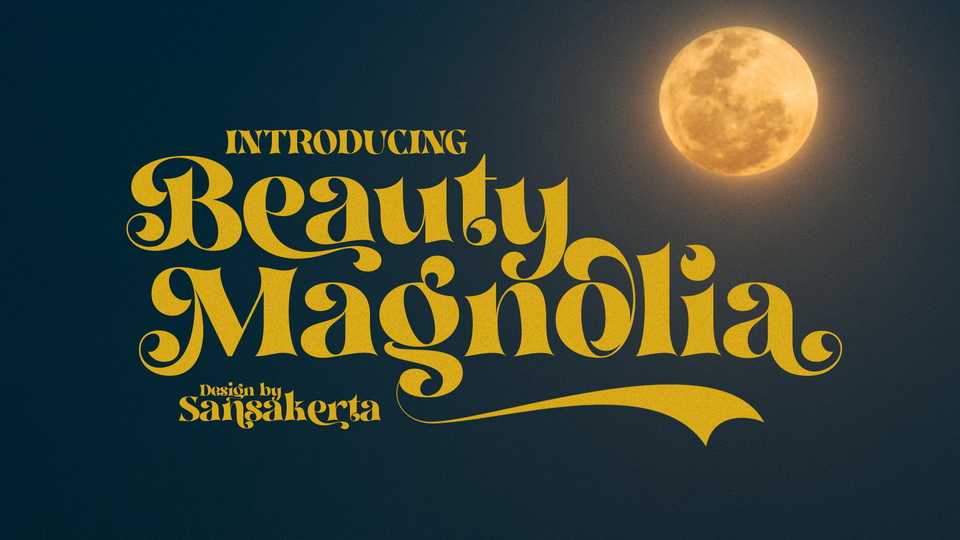
Download Beauty Magnolia font, a versatile serif typeface with the ornaments to create a more stunning display. Beauty Magnolia font is perfect for example magazines, postcards, logos, vintage look, old classic ,60s, 70s, 80s era, wedding projects and many more.
Designer: Dean Nugraha